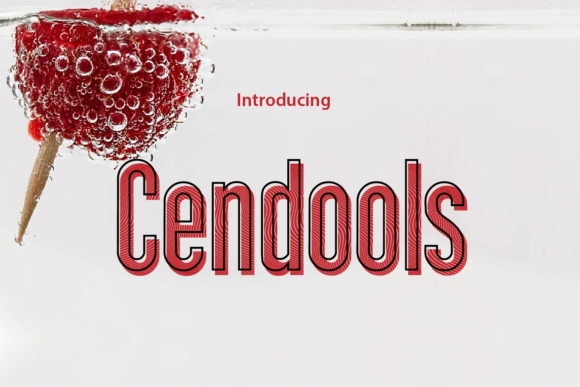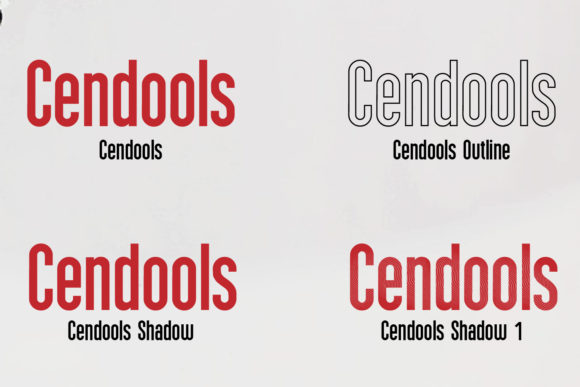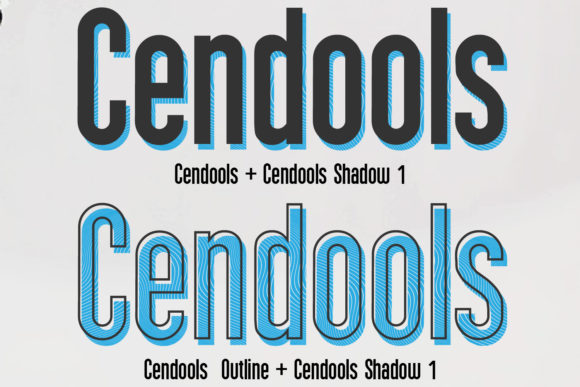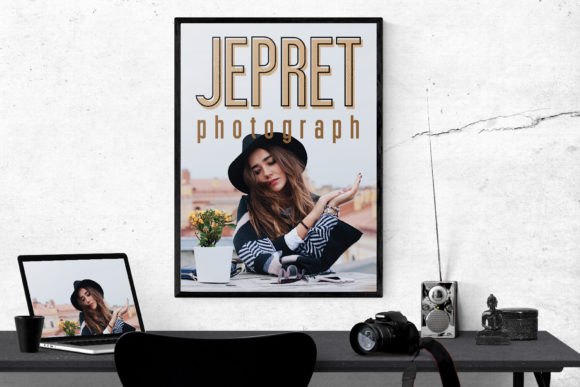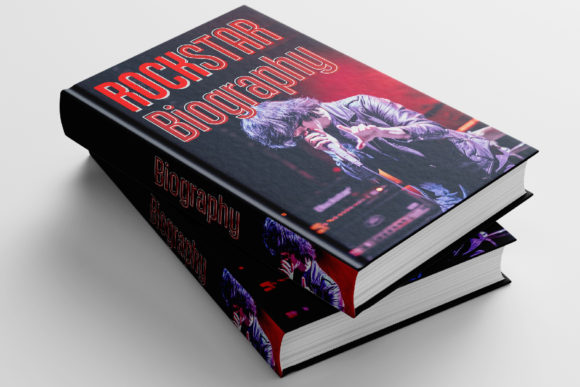
Cendools Font
About Cendools Font
Cendools is a simple and modern sans serif font with a gorgeous feel. Get inspired by its timeless and minimalist elegance!